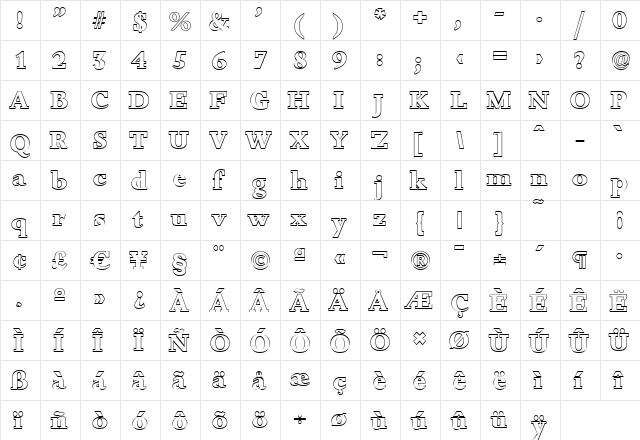
JessicaBeckerOutline-ExtraBold Regular
Design Context for JessicaBeckerOutline-ExtraBold Typeface
JessicaBeckerOutline-ExtraBold is built around its visual character rather than neutral utility — its distinctive forms are designed to make an impression at display sizes. Its bold stroke weight gives it real presence on the page.
Font Pairing: Pair with a clean neutral sans-serif for body copy to let JessicaBeckerOutline-ExtraBold's character lead without overwhelming the composition.
Pro Tip: Use JessicaBeckerOutline-ExtraBold exclusively at display sizes — it was designed to be seen, not read at length. Let a neutral companion handle body copy.